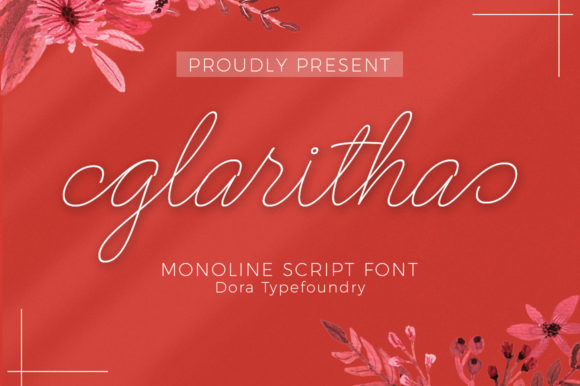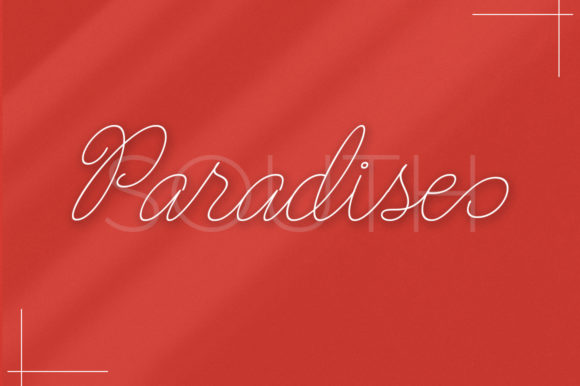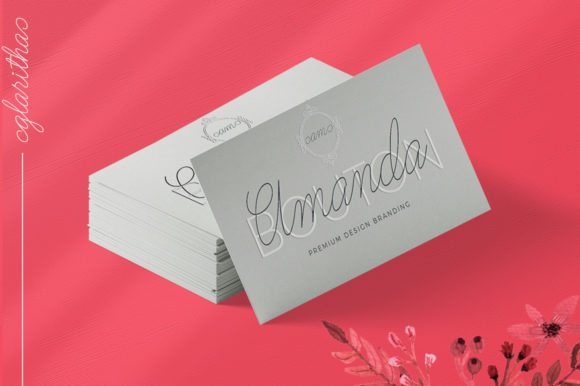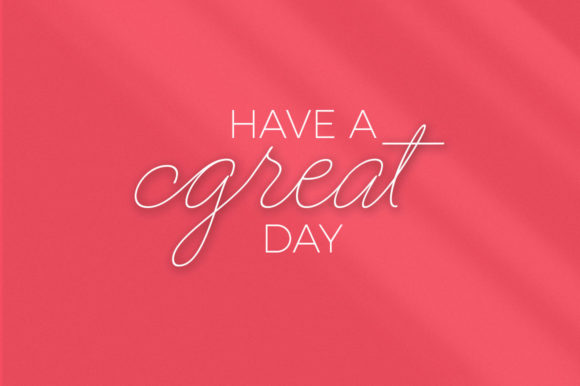
About Glaritha Font
Introducing “Glaritha,” an exquisite handwritten font that captivates with its distinct, delicate, and timeless style. With its unique charm, this font is the perfect choice for a wide array of designs, from wedding invitations and thank you cards to quotes, greeting cards, logos, and business cards.
“Glaritha” evokes a sense of elegance and sophistication, making every project it touches truly stand out. Its flowing strokes and graceful curves bring a touch of artistry to each character, creating a seamless and visually appealing aesthetic.
When used in wedding invitations, “Glaritha” sets the tone for a memorable and enchanting celebration, capturing the essence of romance and love. The font adds a sense of warmth and personal touch to thank you cards, expressing gratitude with heartfelt sincerity.
In quotes and greeting cards, “Glaritha” imparts a sense of beauty and wisdom, enhancing the message with its timeless elegance. When incorporated into logos and business cards, this font bestows a touch of sophistication and professionalism, leaving a lasting impression on clients and customers.
The versatility of “Glaritha” knows no bounds, as it can also be used in social media posts, branding materials, and any design that benefits from a handcrafted touch. Its timeless appeal ensures that your creations will endure through the years.
Embrace the unique beauty of “Glaritha” and watch as it breathes life into your creative projects. This font is the epitome of handcrafted artistry, embodying a sense of refinement and authenticity that resonates with any audience.
With “Glaritha” at your disposal, your designs will take on a new level of sophistication and charm. Fall in love with the captivating allure of “Glaritha” and witness how it elevates your creations to new heights. Let this font become the centerpiece of your designs, creating an everlasting impression that leaves a mark on every heart it touches. Unleash the timeless beauty of “Glaritha” and embrace the magic of handwritten elegance.